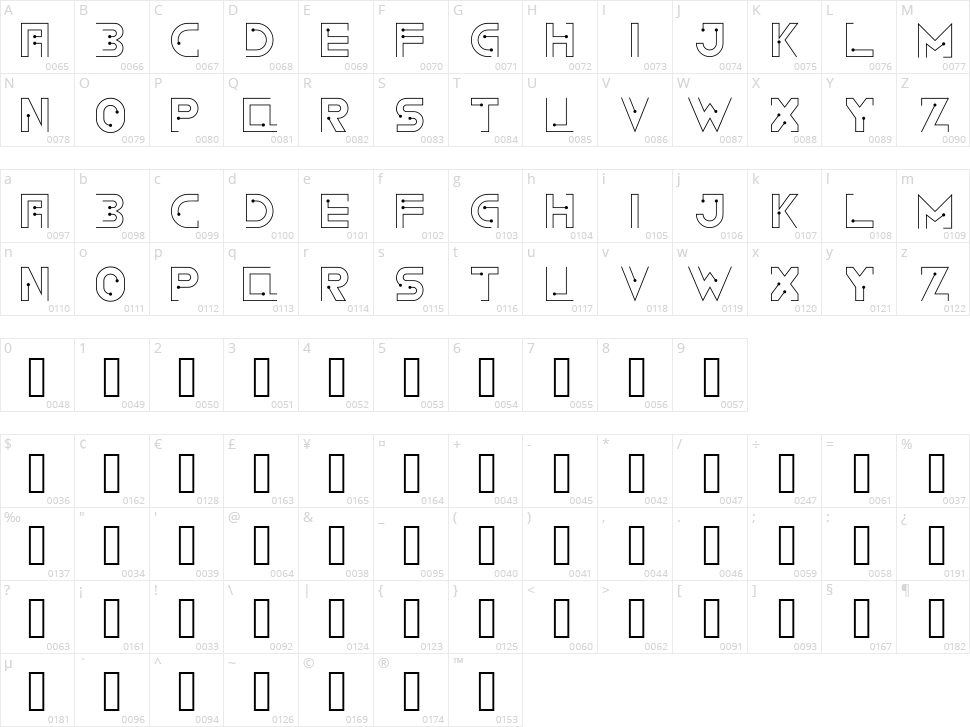
Exwayer Font
Designers Note
XYR or exwayer is futuristic thin line font.
UPPERCASE LETTER
Great in use for logo design, title, any kind of technology category